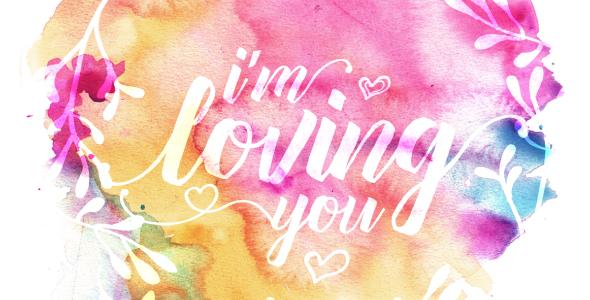
Hello Lary Font
Introducing Hello Lary! A lovely handmade typeface. Suitable for any design needs, modern invitation design, branding, blog design, modern advertising design, invitation, Art Quote, Home decor, Book/Cover Title, Invitation, special events, birthday, custom mug, pillow, t-shirts, any brush lettering needs and more. Hello Lary Typeface comes with upper and lowercase Standard Characters, Punctuation, Numerals. And other Glyphs variation of the OpenType features such as Standard Ligature and Stylistic Set. Stylistic Set are available for lowercase characters. Accessible in the Adobe Illustrator and adobe indesign Glyphs panel, or under Stylistic Alternates in the Adobe Photoshop OpenType menu. Thank you for your purchase! and hope you’re having fun with “Hello Lary” ! Happy creating!